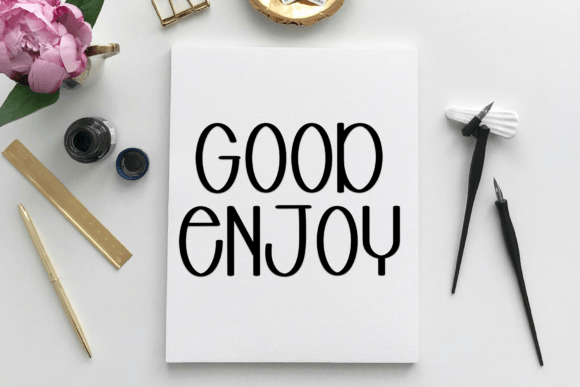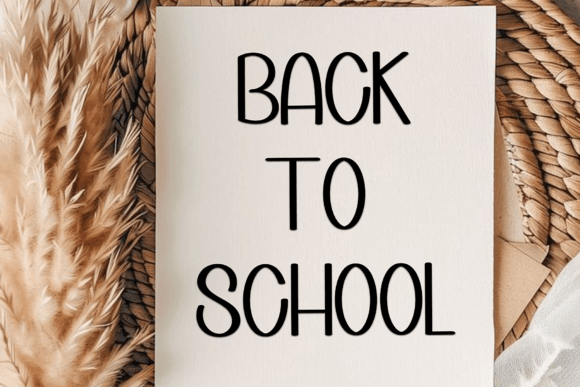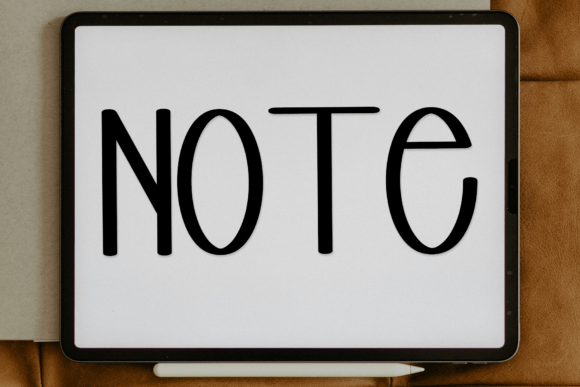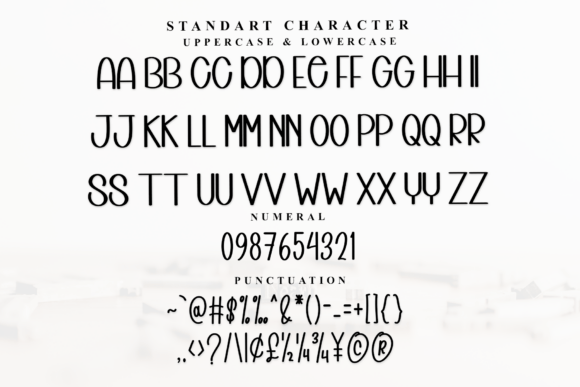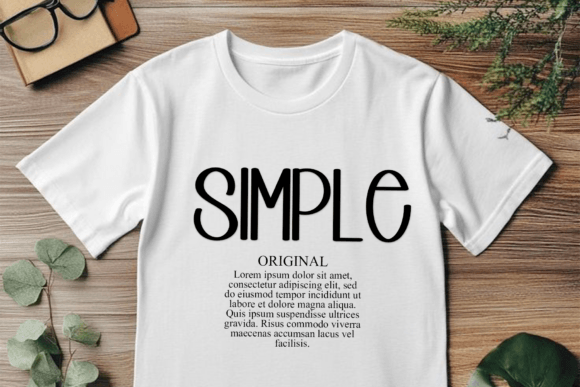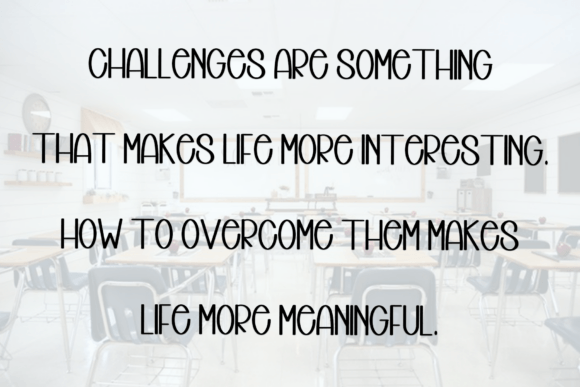
Dancing Valentine Font: The Perfect Addition to Your Design Collection
Are you a designer or crafter looking for a unique and sweet font to add a personal touch to your projects? Look no further than the Dancing Valentine font! This beautiful, handwritten font is perfect for creating a wide range of designs, from romantic get-well cards to fun and playful party invitations.
What Makes Dancing Valentine Font So Special?
Dancing Valentine is a sweet and friendly handwritten font that boasts a natural and unique style. Its distinctive look and feel make it incredibly fitting for a large pool of designs, and the only limit is your imagination! Whether you’re creating a custom sign, a decorative label, or a heartfelt greeting card, this font is sure to add a touch of personality and whimsy to your project.
Key Features of Dancing Valentine Font
- Handwritten style: Dancing Valentine font has a beautiful, handwritten look that’s perfect for creating personal and unique designs.
- Natural and unique style: The font’s natural and unique style makes it incredibly versatile and suitable for a wide range of designs.
- Sweet and friendly: The font’s sweet and friendly tone is perfect for creating designs that are playful, romantic, or heartfelt.
- Easy to read: Despite its handwritten style, Dancing Valentine font is easy to read and understand, making it perfect for use in a variety of designs.
Uses for Dancing Valentine Font
The Dancing Valentine font is incredibly versatile and can be used in a wide range of designs, including:
- Greeting cards: Create beautiful, one-of-a-kind greeting cards for special occasions like Valentine’s Day, birthdays, and holidays.
- Party invitations: Use Dancing Valentine font to create fun and playful party invitations that set the tone for a memorable celebration.
- Signs and labels: Add a personal touch to your signs and labels with this beautiful, handwritten font.
- Social media graphics: Use Dancing Valentine font to create eye-catching social media graphics that showcase your personality and style.
- Branding and packaging: Add a touch of whimsy and personality to your branding and packaging with this unique and eye-catching font.
Tips for Using Dancing Valentine Font
Here are a few tips for getting the most out of Dancing Valentine font:
- Experiment with different colors: Try pairing Dancing Valentine font with different colors and textures to create a unique and eye-catching design.
- Play with font sizes: Experiment with different font sizes to create visual interest and hierarchy in your design.
- Add embellishments: Consider adding embellishments like hearts, flowers, or other graphics to enhance your design and make it more visually appealing.
In conclusion, Dancing Valentine font is a sweet and friendly handwritten font that’s perfect for designers and crafters looking to add a personal touch to their projects. Its natural and unique style makes it incredibly versatile, and the only limit is your imagination! Whether you’re creating greeting cards, party invitations, signs, or social media graphics, this font is sure to add a touch of personality and whimsy to your design.